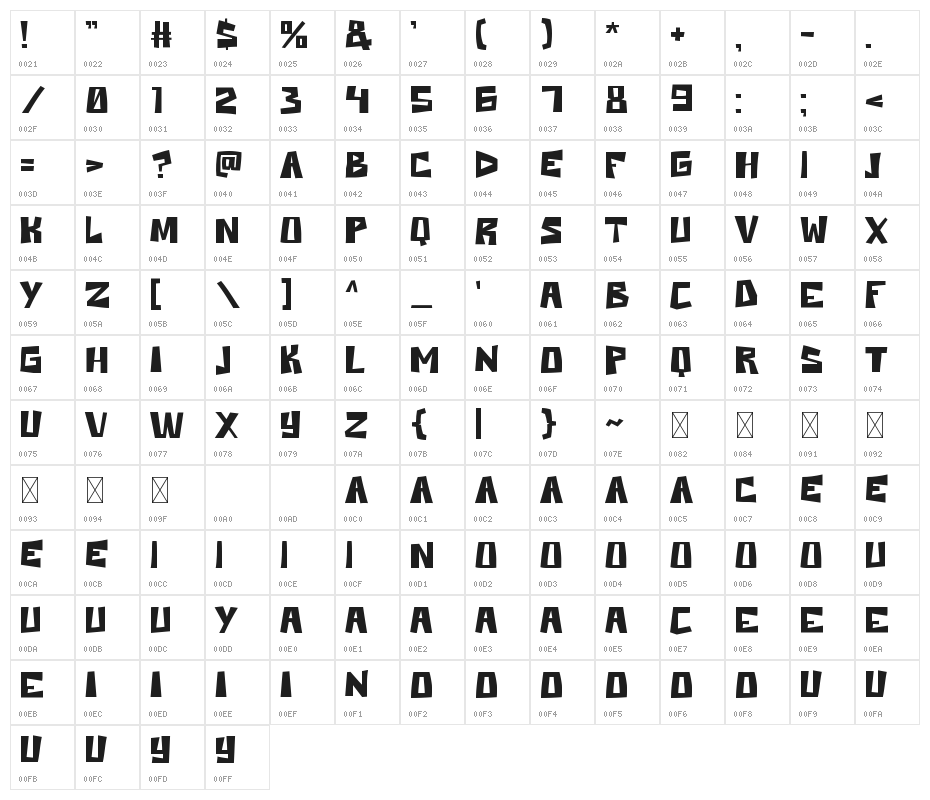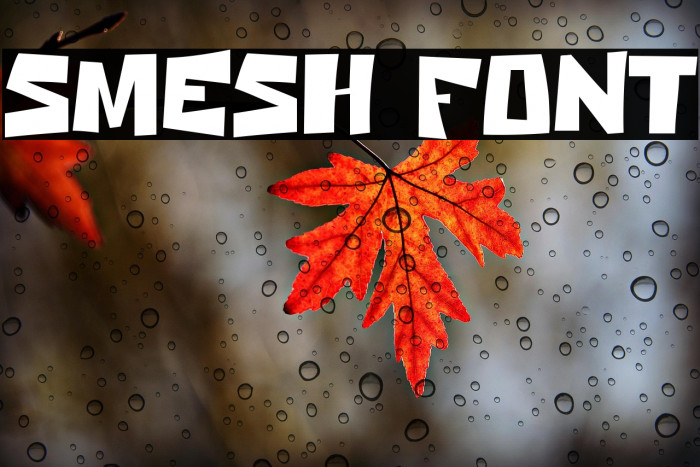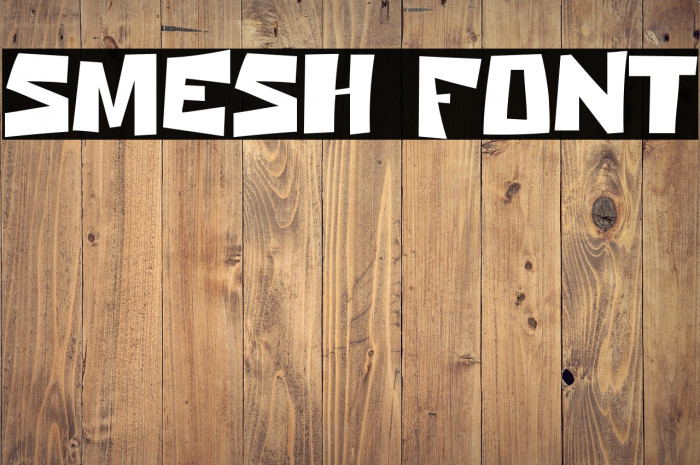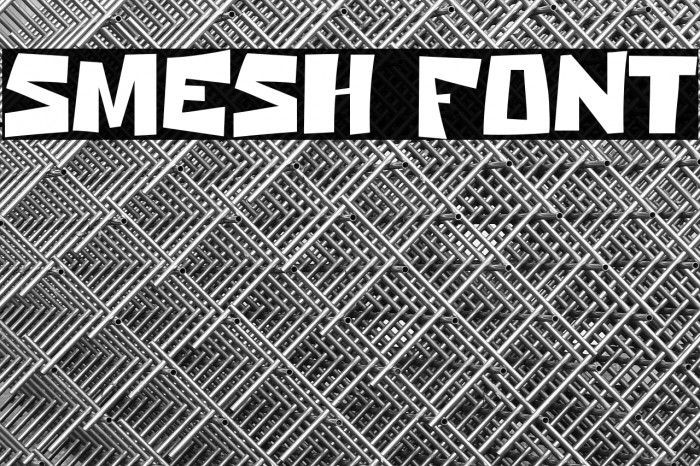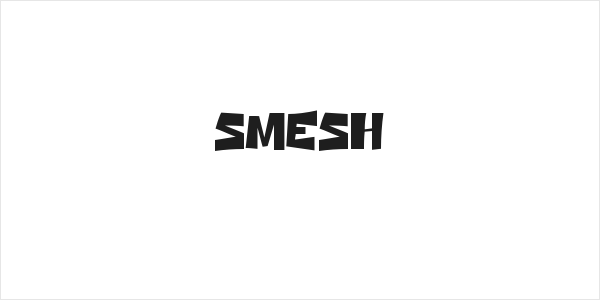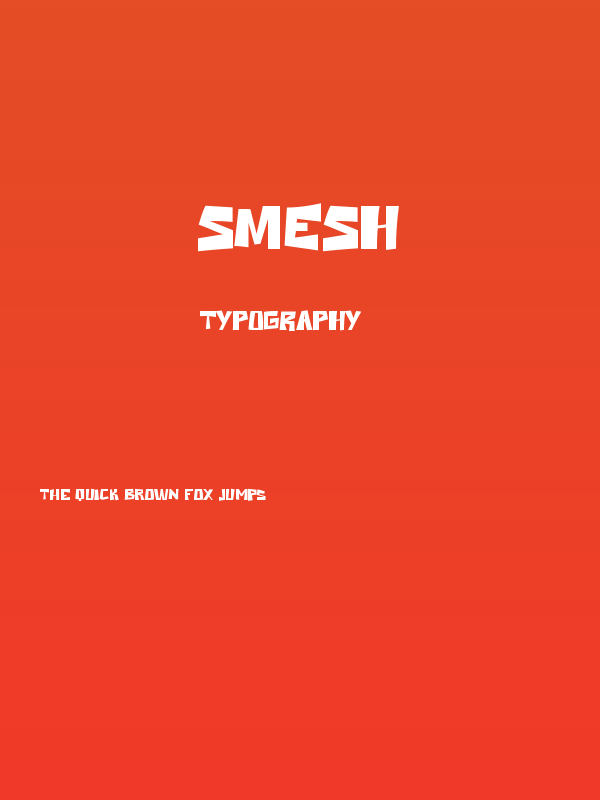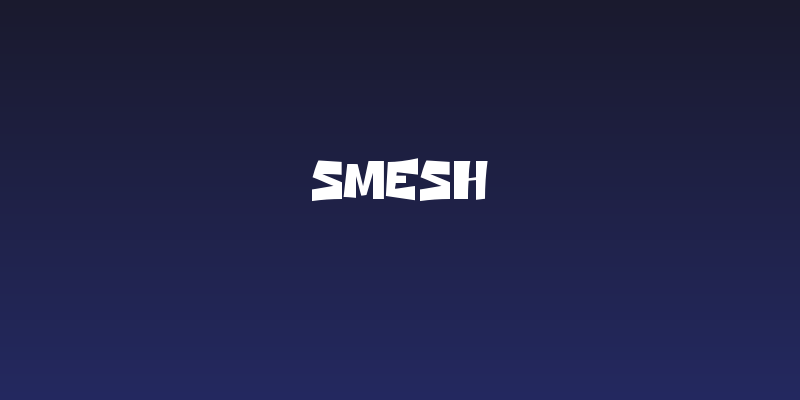
SMESH Font
SMESH Description
This font features a bold and dynamic style with a distinctly angular and geometric design. The characters exhibit a playful yet aggressive aesthetic, characterized by sharp edges and irregular shapes that create a sense of movement and energy. The uppercase and lowercase letters maintain a consistent style, with the uppercase being slightly more exaggerated in form. Numbers and special characters follow the same design principles, ensuring a cohesive look across all glyphs. The font's unique appearance makes it stand out, ideal for projects that require a strong visual impact.
| Proposed Projects | Perfect for posters, video game graphics, branding for edgy products, or any project needing a bold statement. |